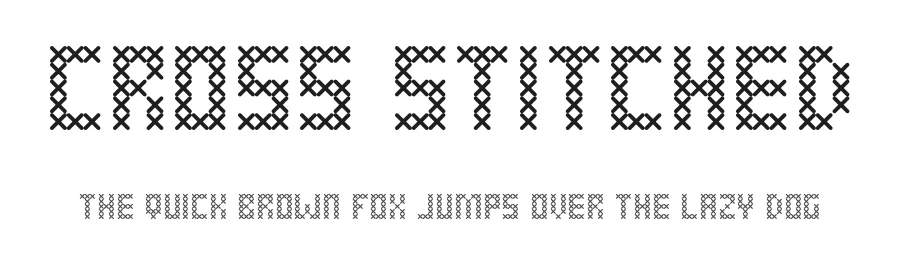
About Costura Font
Costura is a decorative font designed by Rebellium. It includes 162 glyphs, a light weight, OTF (CFF) format, and 162 languages. Costura is free to download; check the license details on this page before commercial use. Decorative fonts like Costura work best for logos, posters, packaging, and standout headlines.
Costura Font is a decorative font that shines as a display or heading face. Pair it with a clean sans-serif or serif font for body text β the contrast creates a clear hierarchy while the two styles stay balanced and easy to read.
Costura Font
by Rebellium